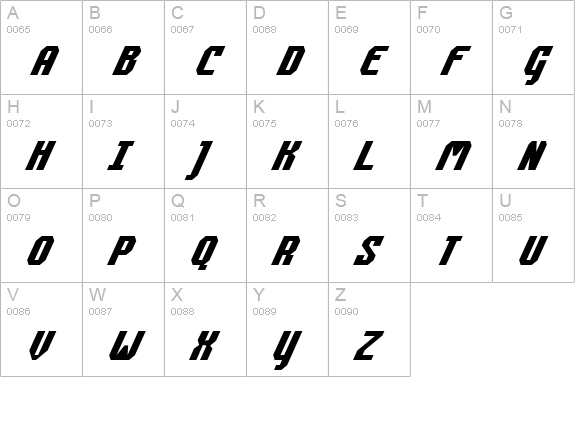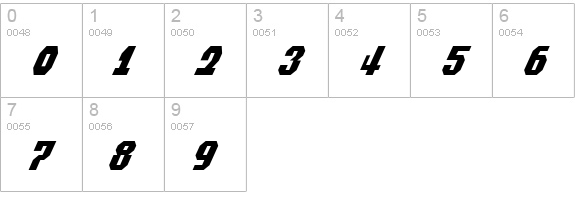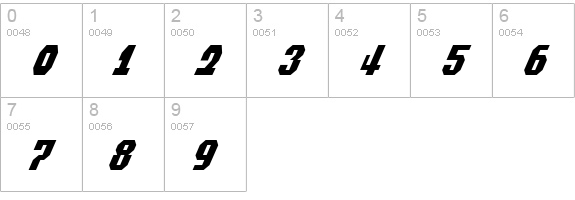
Commonwealth Condensed Italic is a distinctive, condensed-width, italic variant in the Commonwealth typeface family \xE2\x80\x94 well suited to design and typography projects.
Commonwealth Condensed Italic is a sleek and modern typeface that exudes elegance and sophistication. Its condensed design gives it a distinctive look that is perfect for adding a touch of class to any project. The italicized style adds a dynamic flair to the text, making it stand out with a subtle sense of motion and fluidity. This font is a versatile choice for a wide range of design applications, from editorial layouts to branding materials. Its clean lines and balanced proportions make it easy to read while still making a bold statement. Whether you're creating a sleek logo or designing a stylish website, Commonwealth Condensed Italic is sure to elevate your project to the next level. The best part? Commonwealth Condensed Italic is completely free to download at FontsMarket.com. Now you can access this premium font without breaking the bank, making it an affordable option for designers and creatives looking to enhance their work with a touch of sophistication. Download Commonwealth Condensed Italic today and see how it can elevate your designs to new heights.